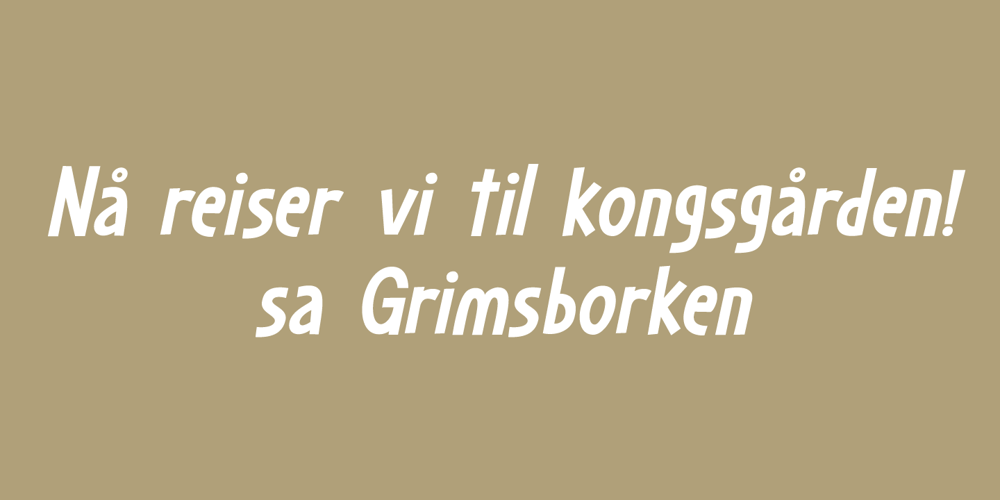
Dapplegrim Font Family was designed by David Kerkhoff and published by Hanoded. Dapplegrim contains 2 styles and family package options. Dapplegrim is a Norwegian fairytale collected by Peter Christen Asbjørnsen and Jørgen Moe in their book ‘Norske Folkeeventyr’. The story is about a boy who inherits a big horse (called Dapplegrim, or Grimsborken in Norwegian) and sets off to rescue the king’s daughter from a nasty troll. Dapplegrim is a handmade fairytale font. Use it for your book covers, product packaging and fairytale collections!